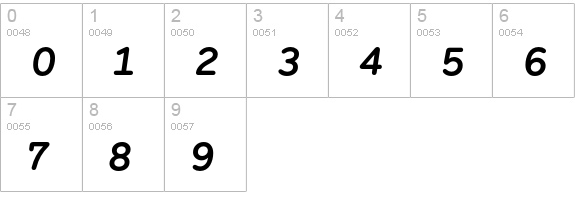
Maax Rounded MediumItalic Font Details
Maax Rounded MediumItalic font is a stylish and modern typeface that exudes sophistication and elegance. Its sleek and rounded design adds a touch of playfulness while maintaining a professional and polished look. The MediumItalic weight strikes the perfect balance between boldness and grace, making it a versatile choice for a wide range of design projects. The Maax Rounded MediumItalic font is not only visually appealing but also highly readable, making it ideal for both headlines and body text. Its italicized style adds a dynamic flair to any text, giving it a unique and eye-catching appearance. Best of all, the Maax Rounded MediumItalic font is free to download at FontsMarket.com. This means you can easily access this high-quality typeface without any cost, making it a valuable addition to your font collection. Whether you're working on a branding project, editorial design, or web layout, the Maax Rounded MediumItalic font is sure to elevate your work and leave a lasting impression.